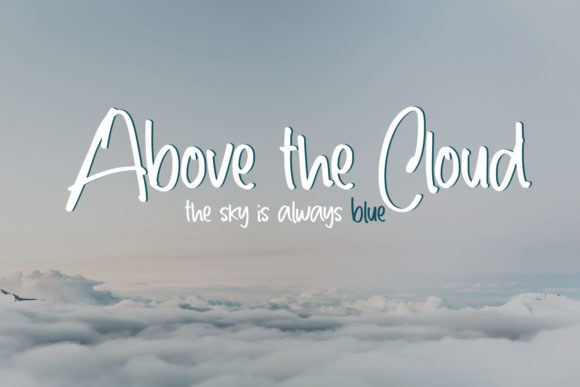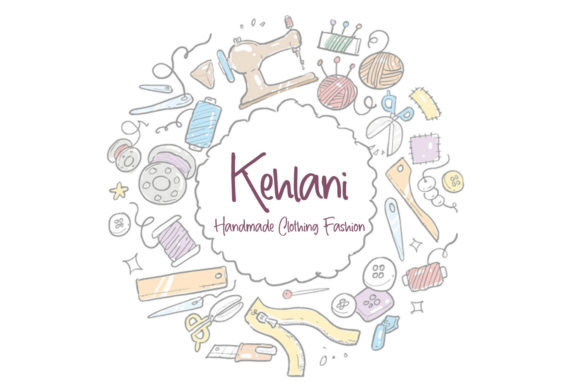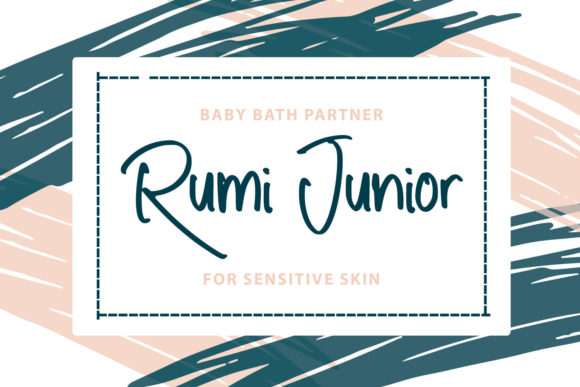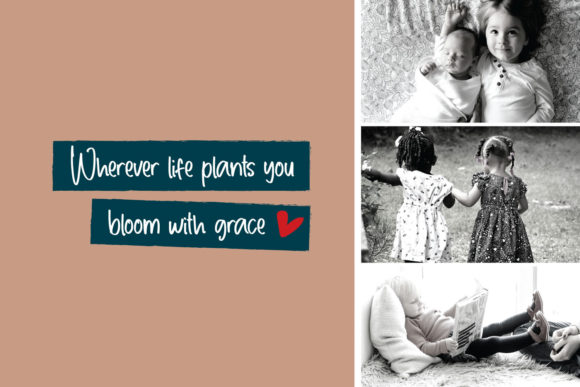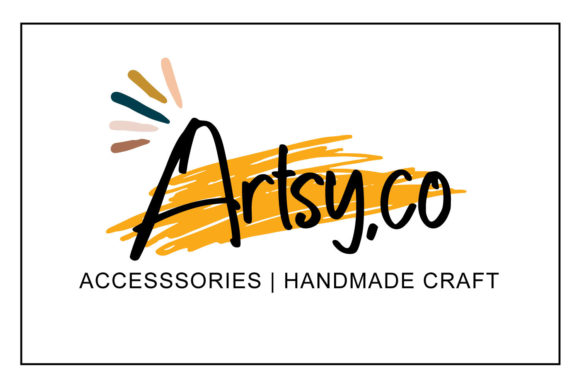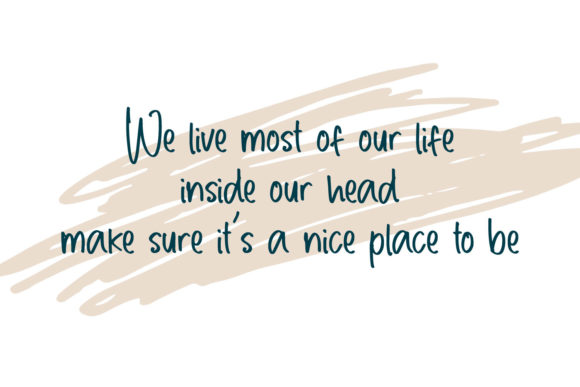
Hazel Page Font: Elevate Your Designs with a Casual Handwritten Touch
In the world of typography, fonts play a crucial role in conveying the tone and personality of a design. For crafters, designers, and creative enthusiasts, finding the perfect font can make all the difference in bringing a project to life. This is where Hazel Page Font comes in – a beautiful, casual handwritten font that has the potential to enhance any creation. In this article, we’ll dive into the world of Hazel Page Font, exploring its features, benefits, and uses, as well as provide tips on how to make the most of this versatile font.
What is Hazel Page Font?
Hazel Page Font is a stunning casual handwritten font that exudes warmth and personality. Its unique, hand-crafted design makes it perfect for a wide range of projects, from digital designs to print materials. Whether you’re working on a branding project, a social media graphic, or a craft project, Hazel Page Font is sure to add a touch of whimsy and charm.
Key Features of Hazel Page Font
So, what makes Hazel Page Font so special? Here are some of its key features:
- Handwritten design: Hazel Page Font boasts a beautiful, hand-crafted design that gives it a unique and personal touch.
- Casual feel: This font has a relaxed, casual vibe that’s perfect for creating friendly and approachable designs.
- Versatile: Hazel Page Font can be used for a wide range of projects, from digital designs to print materials.
- Easily readable: Despite its handwritten design, Hazel Page Font is surprisingly easy to read, making it perfect for body text and captions.
Benefits of Using Hazel Page Font
So, why should you choose Hazel Page Font for your next project? Here are some benefits of using this amazing font:
- Adds personality to your designs: Hazel Page Font has a unique personality that can help your designs stand out from the crowd.
- Enhances creativity: The casual, handwritten design of Hazel Page Font can inspire creativity and add a touch of whimsy to your projects.
- Perfect for crafty projects: If you’re a crafter or maker, Hazel Page Font is a great choice for adding a personal touch to your projects.
- Great for digital and print materials: Whether you’re working on digital designs or print materials, Hazel Page Font is versatile enough to work beautifully in both formats.
Tips for Using Hazel Page Font
Now that we’ve covered the features and benefits of Hazel Page Font, here are some tips for using this amazing font:
- Pair with bold fonts: Hazel Page Font pairs beautifully with bold fonts, creating a striking contrast that’s perfect for headings and titles.
- Use for body text: Despite its handwritten design, Hazel Page Font is surprisingly easy to read, making it perfect for body text and captions.
- Add a personal touch: Use Hazel Page Font to add a personal touch to your designs, whether you’re creating a social media graphic or a craft project.
- Experiment with colors: Hazel Page Font looks great in a variety of colors, so don’t be afraid to experiment and find the perfect hue for your project.
In conclusion, Hazel Page Font is a beautiful, casual handwritten font that’s perfect for adding a touch of personality to your designs. With its unique design, versatility, and ease of use, this font is sure to become a staple in your font library. Whether you’re a designer, crafter, or creative enthusiast, Hazel Page Font is a great choice for any project. So why not give it a try and see the difference it can make in your designs?
With Hazel Page Font, you can:
- Create stunning digital designs and print materials
- Add a personal touch to your craft projects
- Enhance your brand with a unique and recognizable font
- Stand out from the crowd with a font that’s truly one-of-a-kind